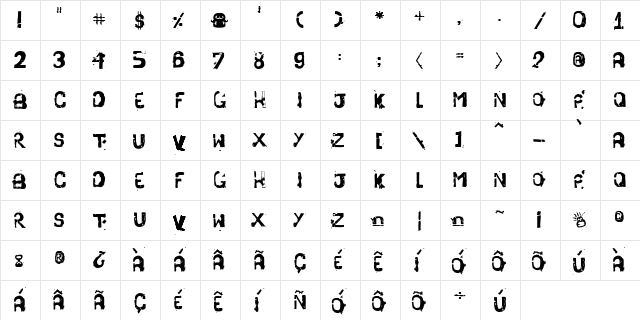
stencil pra vender c Regular
Design Context for stencil pra vender c Typeface
stencil pra vender c has the rough pragmatism of spray-painted stencil signage, adding a raw, street-level authenticity to designs.
Ideal for industrial branding, streetwear, military-adjacent aesthetics, and urban signage projects.
Pro Tip: Pair stencil pra vender c with raw, utilitarian design elements — exposed concrete textures, flat colour, and minimal ornamentation suit it well.